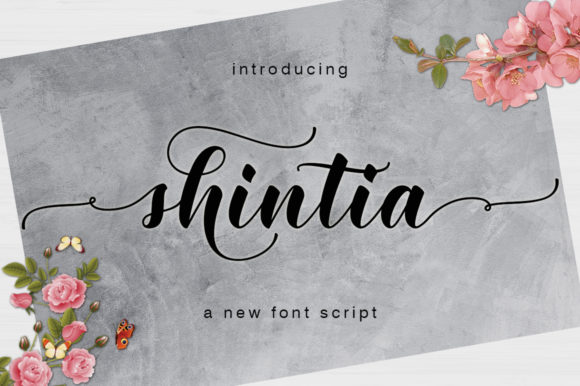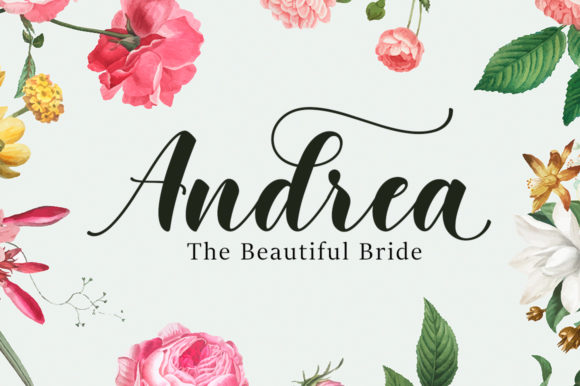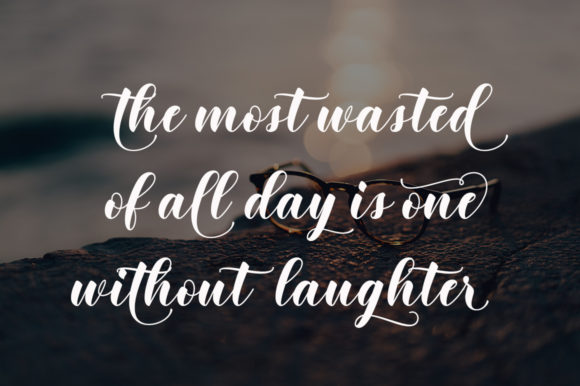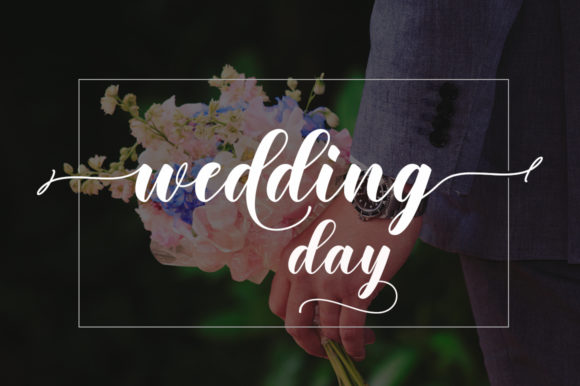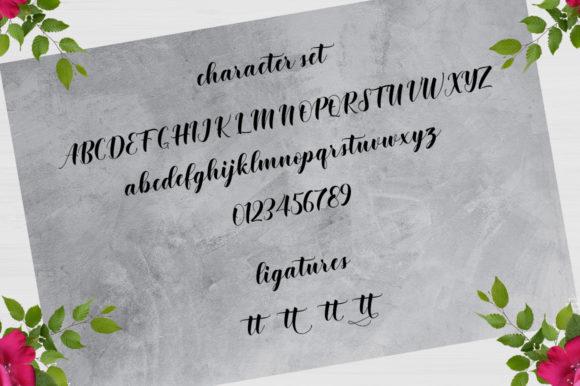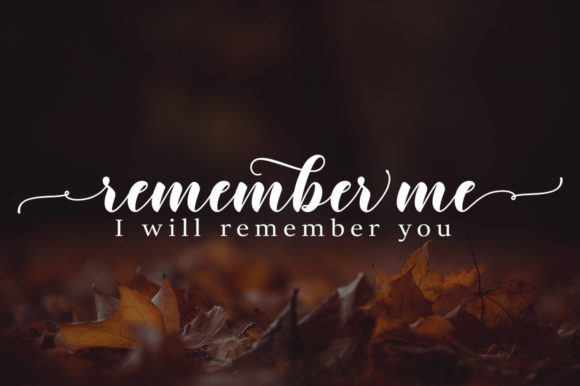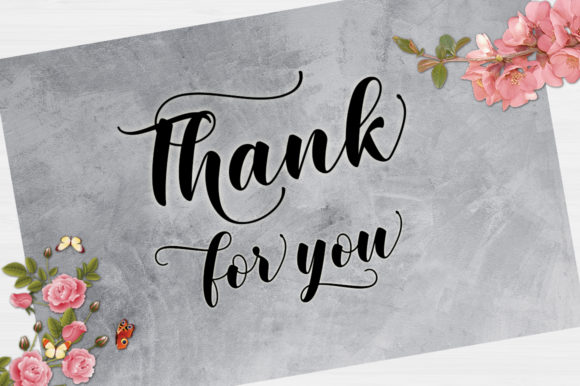
Shintia Font
About Shintia Font
Shintia is a simple, yet sophisticated handwritten font with a stunning feel. Use it to add an adorable feel to any design project.